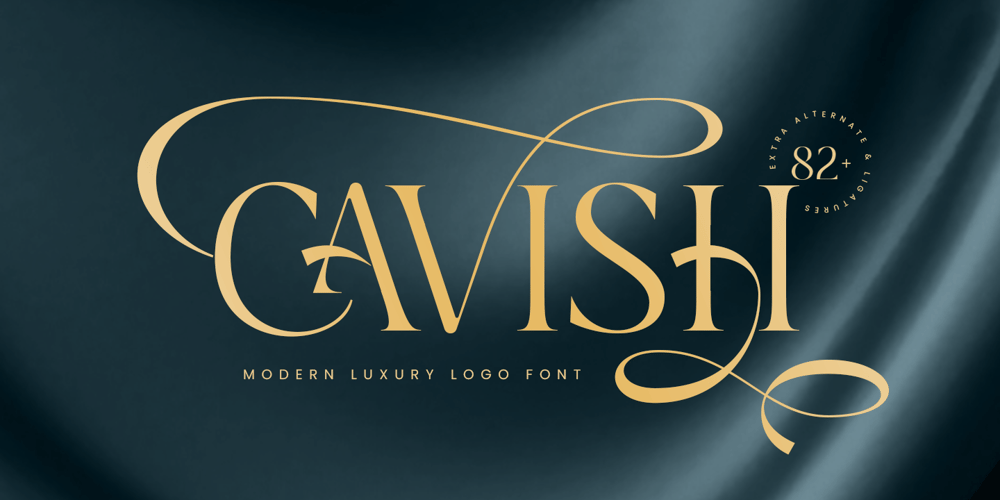
Cavish Font Family was designed by Zamroni Hamzah and published by Sensatype Studio. Cavish contains 1 styles and family package options. Introducing Cavish, a font that epitomizes modern luxury and elegance. Designed to elevate your brand, Cavish combines contemporary style with timeless sophistication, making it perfect for logos and high-end branding projects.The Story Behind Cavish:Imagine a font that embodies the essence of luxury, combining modern design elements with classic refinement. Cavish was born from the idea of creating a typeface that exudes sophistication and style, making it the ideal choice for brands looking to make a lasting impression. Each character is meticulously crafted to reflect elegance and premium quality, ensuring your designs stand out in any setting.Cavish Font Features: Elegant Design: A sophisticated and stylish font perfect for luxury branding. Modern Aesthetics: Combines contemporary design with classic elegance. Versatile Usage: Ideal for logos, branding, invitations, and upscale marketing materials. Multiple Formats: Available in 4 formats for all your design needs. High Legibility: Clear and refined, ensuring your message is conveyed with elegance. *Inspirational Previews: Includes sample designs to spark your creativity. Perfect For: Luxury Brands: Create logos and branding that exude sophistication and elegance. High-end Products: Design packaging and marketing materials for premium products. Event Invitations: Develop stunning invitations for weddings, galas, and exclusive events. Upscale Marketing: Elevate your marketing materials with a touch of luxury and style. With Cavish, your designs will radiate elegance and refinement. Whether you’re working on high-end branding, luxury product packaging, or sophisticated event invitations, Cavish provides the perfect blend of modern style and classic elegance. Enhance your brand with Cavish and make a statement that resonates with luxury and sophistication.